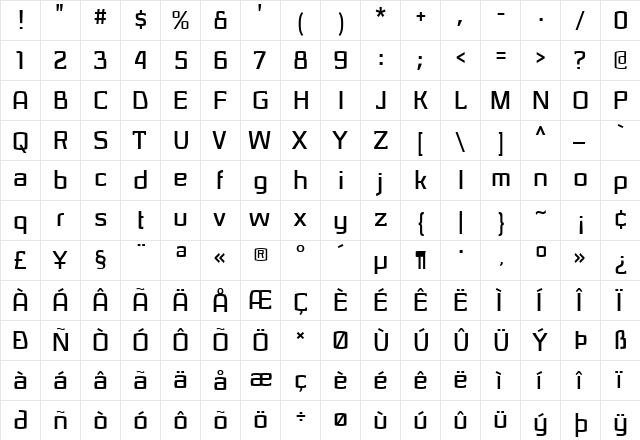
Sarasori Bold
Design Context for Sarasori Typeface
Sarasori is a composed and adaptable typeface that performs quietly and consistently across a wide range of design contexts. Its bold stroke weight gives it real presence on the page.